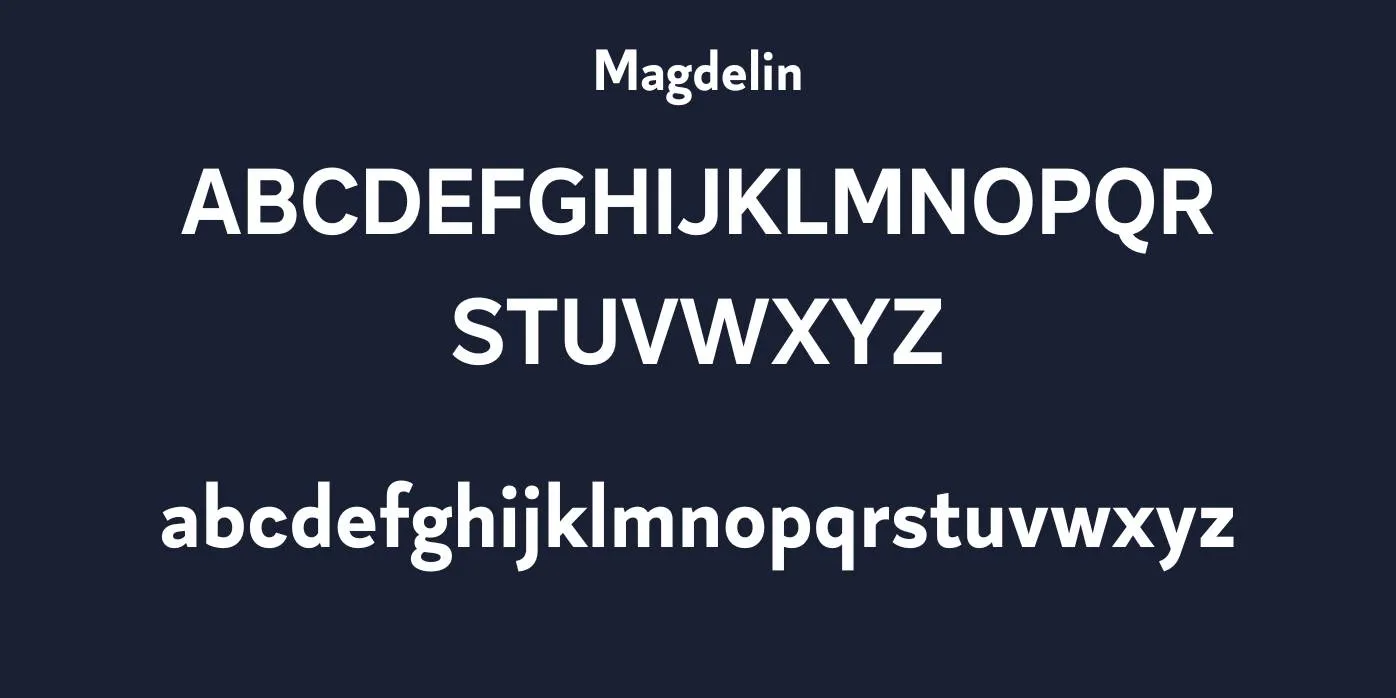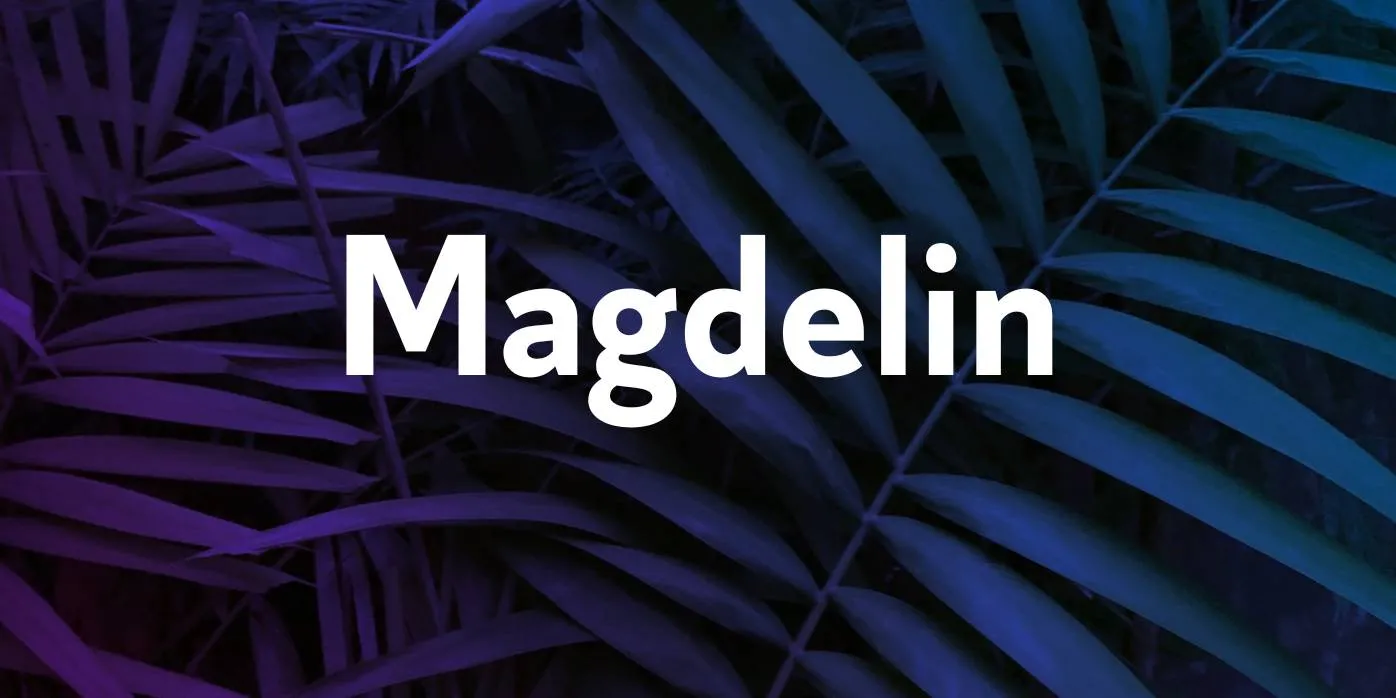
Magdelin Font
Today we discuss an amazing font named Magdelin Font. This is a Sans-Serif font designed by Sealoung. It can be used to design many different projects by using this font. This font has 329 characters, 294 glyphs, and 1000 units per Em.
The weight of the font is Semi-bold and its width is medium(normal).  Unicode supported 2.0 and BMP only. Languages supported by this font are Ethiopic, Latin, Braille Han, and symbols. Unicode blocks followed by this font are Letterlike symbols, general punctuations, Box drawings, phonetic Extensions, and much more. An online generator tool is available to make amazing designs online without downloading the font.
It is a very amazing and neat font and has a high readability. Usage This stunning font is perfect for designing so many different projects it has many features which make it useful for many projects. You can use it to make attractive headlines and titles for different projects or organizations. Interesting logos can be made by using this font.
For all types of advertisement purposes, you can also use it. To design or edit projects in Adobe Photoshop, CSS, and Canva you can use this font as well. For branding and product packing you can also use it. Graphic designs and website designs can also be made by using this font.
You can make attractive signboards and billboards with this font. It is considered as a good font for both types of media print and digital. It has so many different weights so you can make interesting designs by using this font. This font is the best choice for making headlines in newspapers and making E-book covers as well.
Yes, it is a very good font and is perfect for designing many display projects it is a very neat and clean font and has high readability.